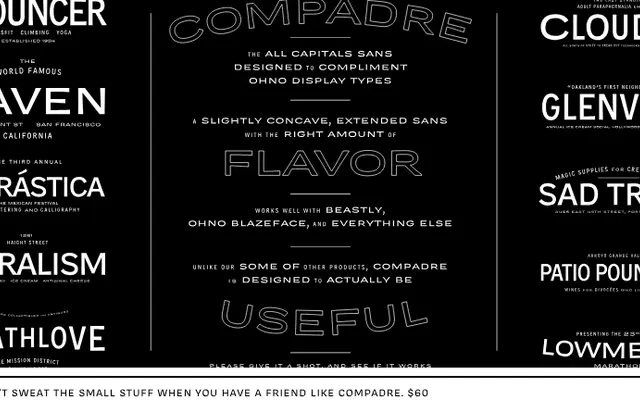
Compadre
An all-caps, single-weight typeface in four widths, built specifically to complement and glue together other display faces in the OH no Type library.
Capitals only, four widths ranging from Narrow to Extended, and a single weight: Compadre is deliberately plain, designed to sit alongside more expressive display faces without competing. OH no Type position it as the connective tissue of their library, and it ships with pairing suggestions for Swear, Hobeaux, Blazeface and others. At $20 per width or $59 for the complete family, it is priced as a workhorse companion rather than a headline act.
An all-caps display typeface offered in four widths from Narrow to Extended, designed explicitly to pair with other display faces rather than stand alone as a text face.